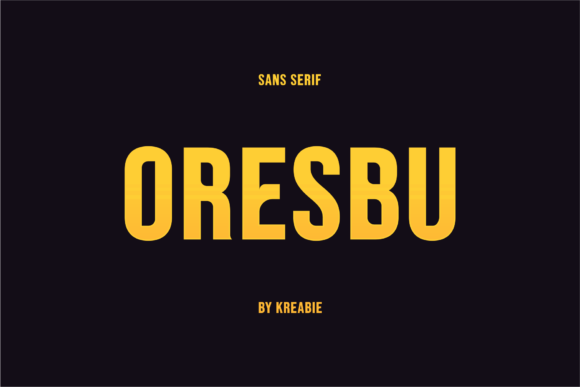
Oresbu Font: A Modernly Designed Display Font for Your Creative Projects
In the world of typography, fonts play a crucial role in conveying messages, expressing emotions, and creating visual identities. Among the numerous fonts available, Oresbu Font stands out as a cool, bold, and modernly designed display font that can elevate your creative projects to new heights. In this article, we’ll explore the features, benefits, and usage of Oresbu Font, and discover how it can help you achieve stunning results.
What is Oresbu Font?
Oresbu Font is a contemporary display font designed to make a statement. Its unique blend of boldness, modernity, and elegance makes it perfect for creative projects that require a touch of sophistication. The font’s design is characterized by clean lines, sharp edges, and a distinctive style that sets it apart from other fonts.
Key Features of Oresbu Font
- Bold and Modern Design: Oresbu Font boasts a bold and modern design that commands attention and makes a lasting impression.
- Clean Lines and Sharp Edges: The font’s clean lines and sharp edges create a crisp and precise look that’s perfect for display purposes.
- Elegant and Sophisticated: Oresbu Font exudes elegance and sophistication, making it suitable for high-end projects and brands.
- Versatile: The font is versatile and can be used for various creative projects, including logos, headlines, posters, and more.
Benefits of Using Oresbu Font
Using Oresbu Font in your creative projects offers several benefits, including:
- Enhanced Visual Appeal: Oresbu Font can add a touch of modernity and sophistication to your projects, making them more visually appealing.
- Increased Legibility: The font’s clean design and boldness ensure that your text is easy to read, even at small sizes.
- Improved Brand Identity: Oresbu Font can help you create a unique and memorable brand identity that sets you apart from competitors.
- Time-Saving: The font’s versatility and ease of use save you time and effort in finding the perfect font for your project.
How to Use Oresbu Font in Your Creative Projects
Using Oresbu Font in your creative projects is easy and straightforward. Here are some tips to get you started:
- Logos and Branding: Use Oresbu Font to create a bold and memorable logo that represents your brand.
- Headlines and Titles: Add Oresbu Font to your headlines and titles to make them stand out and grab attention.
- Posters and Flyers: Use Oresbu Font to create eye-catching posters and flyers that promote your products or services.
- Digital Media: Oresbu Font is perfect for digital media, including social media graphics, website headers, and more.
Tips for Getting the Most Out of Oresbu Font
To get the most out of Oresbu Font, follow these tips:
- Experiment with Colors: Try different colors and combinations to find the perfect match for your project.
- Play with Sizes: Experiment with different font sizes to create visual hierarchy and emphasis.
- Mix and Match: Combine Oresbu Font with other fonts to create a unique and interesting typography.
- Pay Attention to Kerning: Adjust the kerning to ensure that your text is evenly spaced and visually appealing.
Oresbu Font is a powerful tool for creative professionals and designers looking to add a touch of modernity and sophistication to their projects. With its bold and modern design, clean lines, and elegant style, Oresbu Font is perfect for a wide range of applications, from logos and branding to headlines and posters. By following the tips and guidelines outlined in this article, you can unlock the full potential of Oresbu Font and take your creative projects to new heights.
FAQs About Oresbu Font
- What is Oresbu Font?: Oresbu Font is a modernly designed display font characterized by its bold and elegant style.